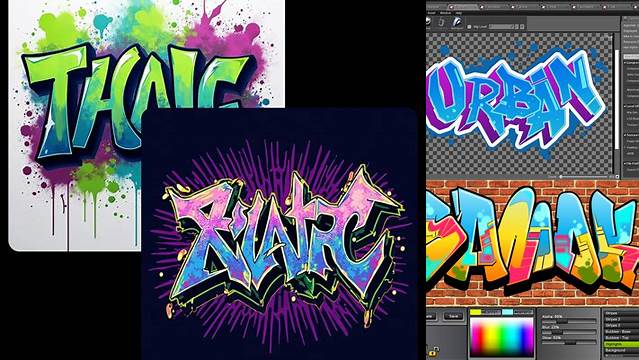
Free AI Graffiti Font Generator: Create Awesome Art
Hey guys! Ever wondered how to create those sick, urban-style graffiti fonts without spending hours perfecting your tag? Well, you're in luck! In this digital age, AI graffiti font generators are popping up everywhere, making it super easy to whip up some awesome designs. Let's dive into the world of free AI graffiti font generators and see how you can create stunning artwork with just a few clicks. This article will explore the benefits of using AI graffiti font generators, how they work, and where you can find the best ones for free. So, grab your virtual spray can, and letβs get started!
What are AI Graffiti Font Generators?
AI graffiti font generators are online tools that use artificial intelligence to create graffiti-style fonts based on your input. These generators take the complexity out of designing intricate letterforms, allowing you to focus on the overall aesthetic of your artwork. Traditional graffiti art requires a lot of skill and practice, but with AI, anyone can produce cool-looking fonts quickly and easily. Think of it as having a digital graffiti artist at your fingertips, ready to turn your creative visions into reality. These tools are perfect for graphic designers, hobbyists, and anyone who wants to add an urban edge to their projects. Whether you're designing a logo, creating social media graphics, or just experimenting with typography, AI graffiti font generators offer a fun and accessible way to achieve that authentic street art vibe. They eliminate the need for complex software or extensive artistic skills, making graffiti design accessible to everyone. This democratization of art allows for greater creativity and experimentation, as users can quickly iterate through different styles and designs without the time commitment traditionally associated with graffiti art. Moreover, the use of AI ensures a level of consistency and precision that can be difficult to achieve manually, resulting in professional-looking fonts that maintain the raw, edgy feel of authentic graffiti.
Why Use a Free AI Graffiti Font Generator?
There are so many reasons why using a free AI graffiti font generator is a total game-changer. First off, it's free! Who doesn't love saving some cash while still getting awesome results? Instead of shelling out money for expensive software or hiring a designer, you can get your graffiti fonts sorted without spending a dime. This is a huge win for anyone on a budget, whether you're a student, a small business owner, or just someone who loves creating cool stuff. Another major perk is the sheer convenience. These generators are super user-friendly. You just type in your text, tweak a few settings, and bam β you've got a custom graffiti font ready to go. No need to spend hours learning complicated software or mastering intricate techniques. The ease of use makes these tools accessible to everyone, regardless of their technical skills or artistic background. Plus, AI graffiti font generators offer a ton of variety. You can play around with different styles, colors, and effects until you find the perfect fit for your project. This flexibility is crucial for ensuring that your fonts match the specific tone and message of your design. Whether you're aiming for a bold, aggressive look or a more subtle, artistic vibe, these generators provide the options you need to achieve your vision. Beyond the practical benefits, using a free AI graffiti font generator can also spark your creativity. The ability to quickly experiment with different styles and see instant results can inspire new ideas and approaches to your design work. It's a great way to push your creative boundaries and discover new possibilities. So, whether you're a seasoned designer or a complete newbie, these tools offer a fantastic way to explore the world of graffiti art and add a unique touch to your projects.
How Do AI Graffiti Font Generators Work?
So, how do these AI graffiti font generators actually work their magic? Well, it's all thanks to some pretty clever artificial intelligence algorithms. These tools use machine learning to analyze countless examples of graffiti art, learning the unique characteristics and styles that make graffiti fonts so distinctive. They study everything from the shapes of the letters to the textures and effects used by graffiti artists. This vast knowledge base allows the AI to generate new fonts that capture the essence of graffiti art. When you use a generator, you typically start by entering your text. The AI then takes your input and applies its learned knowledge to create a font that matches the graffiti style. Many generators also allow you to customize the font further. You might be able to adjust the thickness of the lines, add drips or splatters, change the colors, and even select different stylistic variations. This level of customization ensures that you can create a font that perfectly fits your project's needs. The AI algorithms work by breaking down the elements of graffiti art into mathematical patterns and then recombining these patterns in new ways. This process allows the AI to generate an almost infinite number of unique fonts, each with its own distinct character. The more you use the generator and experiment with different settings, the better you'll understand how the AI works and how to get the results you want. The technology behind these generators is constantly evolving, with new algorithms and features being added all the time. This means that the quality and variety of AI-generated graffiti fonts are only going to improve over time. Whether you're a tech enthusiast or just someone who appreciates cool design tools, the inner workings of AI graffiti font generators are truly fascinating. They represent a powerful intersection of art and technology, opening up new possibilities for creative expression.
Top Free AI Graffiti Font Generators
Alright, let's get to the good stuff! There are a bunch of free AI graffiti font generators out there, but which ones are the best? Here are a few of my top picks that you should definitely check out: First up is Graffiti Creator. This one is a classic for a reason. It's super easy to use and gives you a bunch of options for customizing your fonts. You can change the colors, add outlines, and even throw in some cool effects like shadows and highlights. It's a great choice for beginners because the interface is straightforward, and you can quickly get a feel for how to create different styles. Plus, it has a wide range of fonts to choose from, so you're sure to find something that suits your needs. Another fantastic option is Font Graffiti. This generator is known for its realistic graffiti styles. The fonts it produces look like they were actually painted on a wall, complete with drips and texture. It's perfect if you're going for an authentic, street-art vibe. Font Graffiti also offers a good amount of customization, allowing you to tweak the colors, sizes, and other details to get the exact look you want. If you're looking for something a bit more modern, TextGiraffe is worth a look. While not strictly a graffiti font generator, it has a lot of cool, urban-style fonts that you can use for your projects. It's a versatile tool that offers a range of different styles, from bold and aggressive to more stylized and artistic. TextGiraffe is particularly good if you need fonts for logos or branding materials, as it offers a good balance between edgy and professional. Don't forget to check out Online Graffiti Creator, which is another solid choice. It's a simple, no-frills generator that gets the job done. It doesn't have as many fancy features as some of the other options, but it's quick and easy to use, making it a great choice for when you need to whip up a font in a hurry. Ultimately, the best AI graffiti font generator for you will depend on your specific needs and preferences. I recommend trying out a few different ones to see which one you like best. They're all free, so you've got nothing to lose! Experiment with the different settings and styles, and have fun creating some awesome graffiti fonts.
Tips for Using AI Graffiti Font Generators
Now that you know about some great free AI graffiti font generators, let's talk about how to get the most out of them. Here are a few tips to help you create killer graffiti fonts: First off, experiment with different styles. One of the best things about these generators is that they offer a huge range of options. Don't just stick to the first font you see β try out different styles, colors, and effects to find something that really stands out. Play around with the settings and see how they change the look of your font. You might be surprised at the unique combinations you can create. Remember that color is key. Graffiti art is all about bold, vibrant colors, so don't be afraid to use them in your designs. Think about the message you want to convey and choose colors that match. Bright, contrasting colors can make your font pop, while more muted tones can create a more subtle, artistic effect. Consider the background you'll be using for your font. A brightly colored font might look great against a dark background, but it might get lost on a busy, colorful background. Think about contrast and readability. While graffiti art is known for its intricate designs, it's important to make sure your font is still easy to read. Avoid using too many complex effects or overlapping elements, as this can make your text look cluttered and illegible. Choose a font style that strikes a good balance between visual interest and readability. Pay attention to the details. Little things like drips, splatters, and outlines can make a big difference in the overall look of your font. Use these effects sparingly to add some extra flair, but don't overdo it. Sometimes, less is more. If you're using your font for a specific project, make sure it fits the overall aesthetic. A gritty, urban-style font might not be the best choice for a professional business presentation, but it could be perfect for a social media graphic or a poster for a music event. Think about the context and choose a font that aligns with the tone and message of your project. By following these tips, you can create graffiti fonts that are not only visually stunning but also effective in conveying your message. So, go ahead, experiment, and have fun!
The Future of AI and Graffiti Art
What does the future hold for AI and graffiti art? It's an exciting question, and there are so many possibilities! As AI technology continues to evolve, we can expect to see even more sophisticated graffiti font generators and design tools. Imagine generators that can create fonts in real-time based on your hand movements or that can adapt to different surfaces and environments. The potential for innovation is huge. One of the most interesting trends is the integration of AI with augmented reality (AR). Imagine being able to use your phone to spray virtual graffiti on real-world walls, creating digital art that interacts with its surroundings. This could open up new avenues for artistic expression and allow graffiti artists to create stunning, site-specific installations. Another area where AI could make a big impact is in the preservation and documentation of graffiti art. Graffiti is often ephemeral, with pieces disappearing over time due to weather, vandalism, or building renovations. AI could be used to create digital archives of graffiti art, preserving these important cultural artifacts for future generations. By analyzing images and videos of graffiti, AI could also help to identify and track the work of individual artists, even if their pieces are spread across different locations. This could help to give graffiti artists the recognition they deserve and protect their intellectual property. Of course, there are also ethical considerations to keep in mind. Some people worry that AI could devalue human creativity or lead to the creation of generic, soulless art. It's important to remember that AI is just a tool, and it's up to us to use it responsibly and creatively. By embracing the potential of AI while staying true to the spirit of graffiti art, we can create a future where technology and art work together to inspire and uplift. So, keep experimenting, keep pushing boundaries, and keep creating awesome graffiti art β the future is in your hands!
So there you have it, guys! AI graffiti font generators are a total game-changer for anyone looking to create awesome urban-style designs. They're free, easy to use, and offer a ton of variety. Whether you're a seasoned designer or just starting out, these tools can help you unleash your creativity and add a unique touch to your projects. We've covered what AI graffiti font generators are, why you should use them, how they work, and some of the best ones out there. We've also shared some tips for getting the most out of these tools and explored the exciting future of AI and graffiti art. The key takeaway is that AI is democratizing art, making it accessible to everyone. You no longer need to be a skilled artist to create professional-looking graffiti fonts. With a few clicks, you can generate stunning designs that capture the edgy, urban aesthetic of street art. This opens up new possibilities for creative expression and allows you to experiment with different styles and ideas without the traditional barriers of skill and time. Remember to explore different generators, play around with the settings, and let your imagination run wild. Don't be afraid to try new things and push the boundaries of what's possible. The world of AI graffiti font generation is constantly evolving, so there's always something new to discover. As technology advances, we can expect to see even more innovative tools and techniques emerge, further blurring the lines between art and technology. So, whether you're designing a logo, creating social media graphics, or just having fun, AI graffiti font generators are a fantastic resource. Embrace the power of AI, and get ready to create some seriously cool artwork. Happy designing, guys! Stay creative and keep pushing those boundaries! The world needs your unique vision, and these tools are here to help you bring it to life.